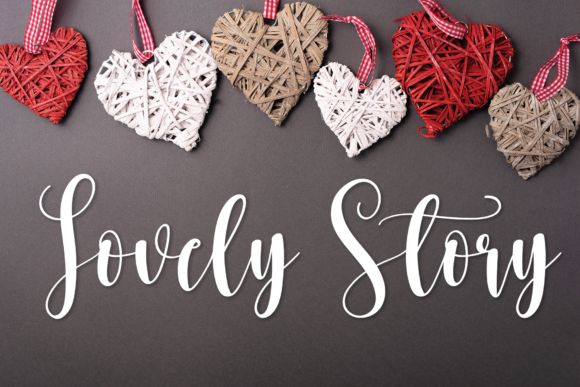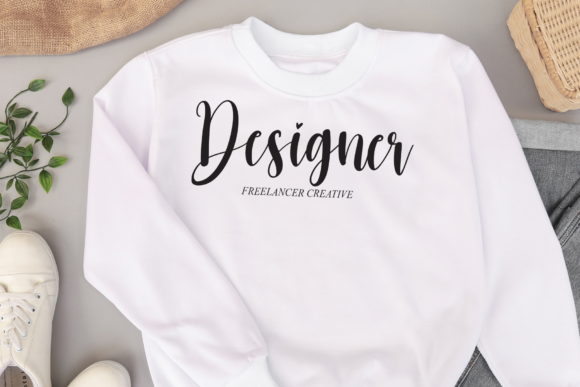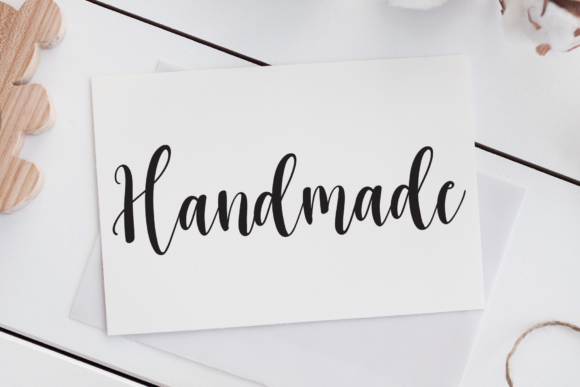
About Wedding Christmas Font
Wedding Christmas is an alluring, well balanced and festive styled script font. It is defined by smooth curves and is perfect for fashion branding or editorial designs.